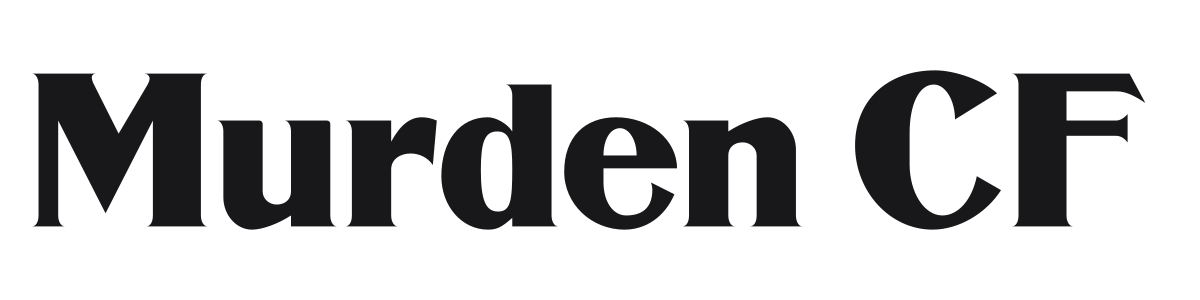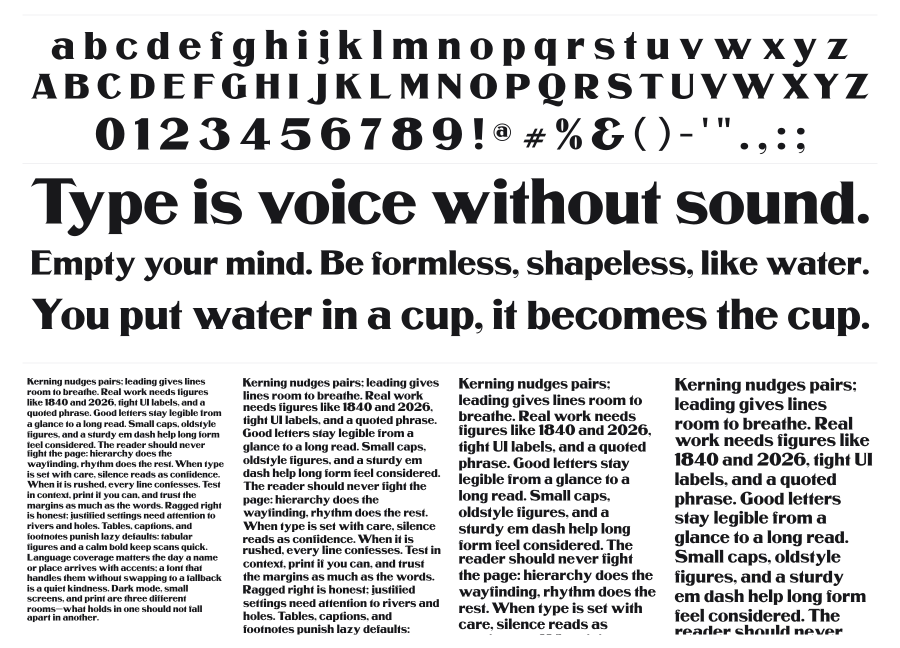
Murden CF
Murden CF is a heavy modern serif revival, completely redrawn from Corbitt, a typeface originally designed by Nicholas J. Werner and published by American Type Founders in 1912. The extreme stroke contrast between thick stems and hairline-thin serifs gives it serious typographic weight, the kind that commands attention on a poster or masthead. Available in both regular and condensed cuts, following the original ATF release.